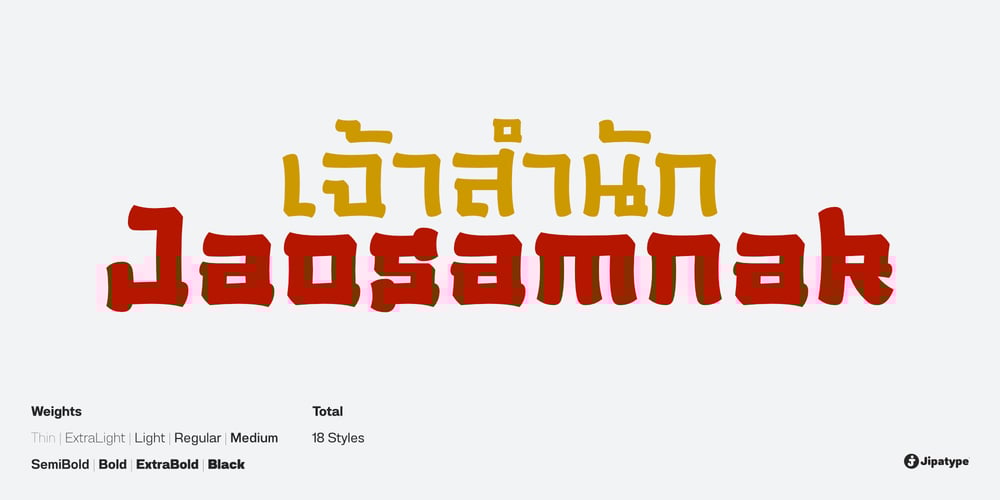
Jaosamnak Font Family was designed by Anupap Jaichumnan and published by Jipatype. Jaosamnak contains 18 styles and family package options. Introducing Jaosamnak, an exquisite typeface that inspiration from Chinese brush calligraphy. With its graceful curves, fluid lines, and simplify, Jaosamnak brings a timeless elegance to your designs. This typeface is tailored for versatility, making it perfect for various applications such as text headlines, sub-headlines, packaging, posters, and other print media.